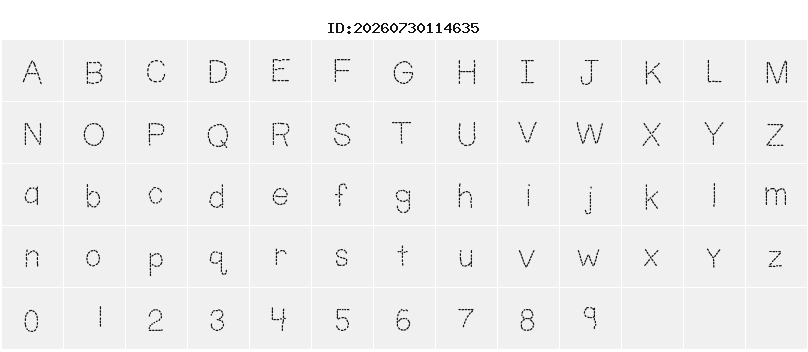
• Font Name: KBUnoDosTrace
• Full Font Name: KBUnoDosTrace
About KBUnoDosTrace.ttf
KBUnoDosTrace.ttf is a modern, elegant sans-serif font designed for ultimate readability and visual harmony. Perfect for branding, headlines, web design, and print materials.